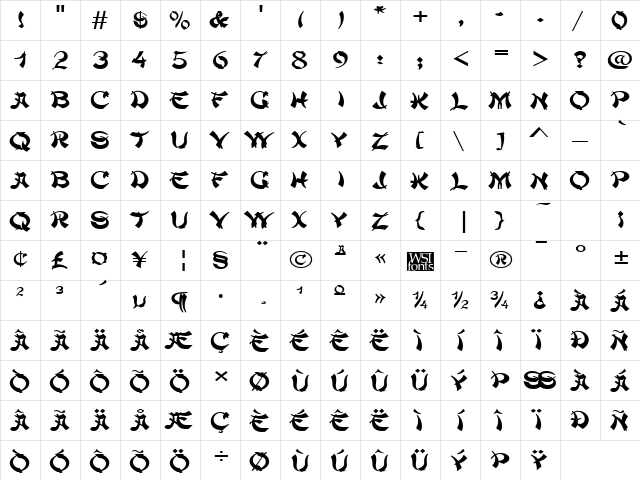
ChowMeinWide Regular
Design Context for ChowMeinWide Typeface
ChowMeinWide is a composed and adaptable typeface that performs quietly and consistently across a wide range of design contexts.